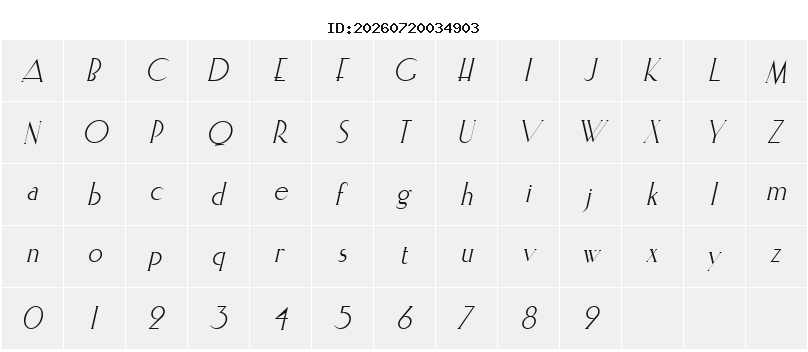
Elisia Preview
• Font Name: Elisia
• Font ID: Weatherly Systems, Inc. Elisia Italic
• Full Font Name: Elisia Italic
• PostScript Name: ElisiaItalic
About Elisia.ttf
Elisia.ttf is a modern, elegant sans-serif font designed for ultimate readability and visual harmony. Perfect for branding, headlines, web design, and print materials.